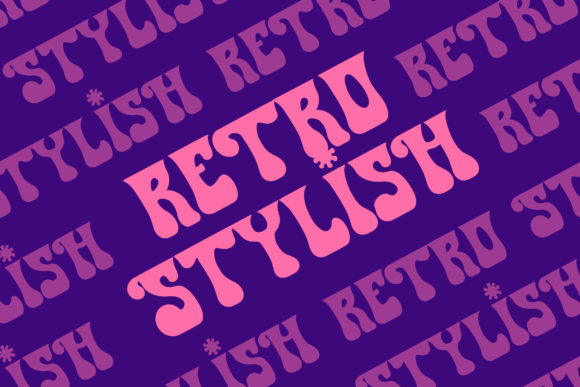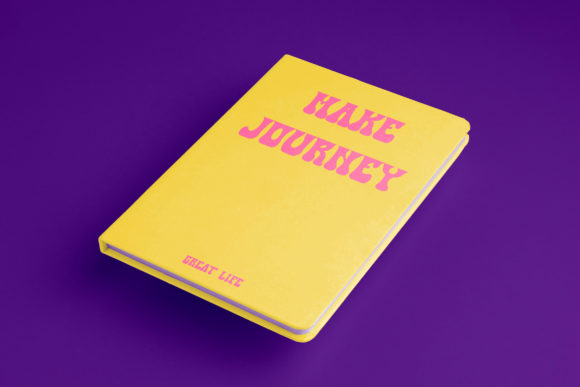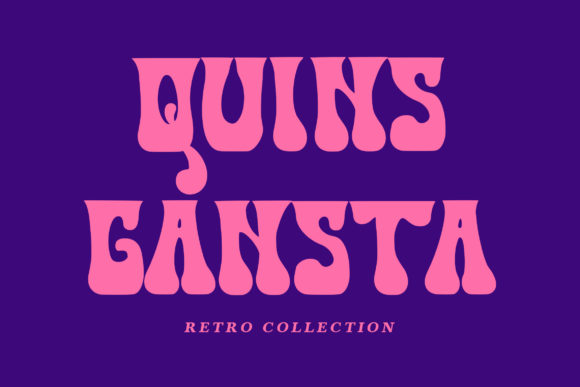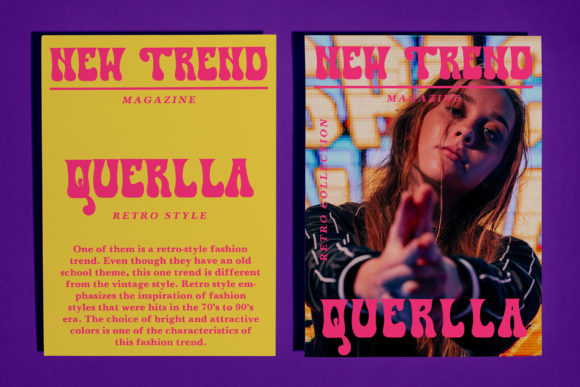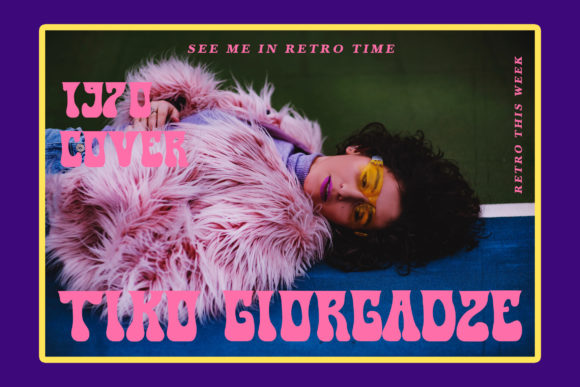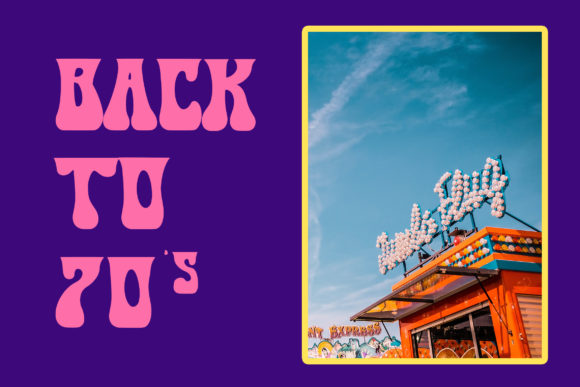
Introducing Happy Sunshine Font: The Ultimate Retro Display Font for Your Creative Projects
Are you tired of using the same old fonts for your designs and crafts? Look no further! Happy Sunshine Font is here to bring a burst of energy and fun to your creations. This wavy, thick lettered, and retro display font is perfect for designers and crafters who want to add a touch of playfulness and whimsy to their work.
What is Happy Sunshine Font?
Happy Sunshine Font is a unique and eye-catching font that is sure to make your designs stand out. Its wavy and thick lettering gives it a retro feel that is reminiscent of classic summer vibes. The font is perfect for creating bold and eye-catching headlines, titles, and quotes that will grab the attention of your audience.
Key Features of Happy Sunshine Font
- Wavy and Thick Lettering: Happy Sunshine Font features wavy and thick lettering that gives it a unique and playful look.
- Retro Display Font: The font has a retro feel that is perfect for creating vintage-inspired designs and crafts.
- Easy to Read: Despite its playful look, Happy Sunshine Font is easy to read and can be used for both headlines and body text.
- Versatile: The font can be used for a variety of design projects, including posters, flyers, brochures, and more.
How to Use Happy Sunshine Font in Your Designs
Happy Sunshine Font is a versatile font that can be used in a variety of design projects. Here are a few ideas to get you started:
- Create Eye-Catching Headlines: Use Happy Sunshine Font to create bold and eye-catching headlines that will grab the attention of your audience.
- Add a Personal Touch to Your Crafts: Happy Sunshine Font is perfect for crafters who want to add a personal touch to their projects. Use it to create custom titles, quotes, and phrases for your crafts.
- Design Vintage-Inspired Posters: Happy Sunshine Font is perfect for creating vintage-inspired posters and flyers. Pair it with some distressed textures and vintage graphics for a unique look.
Why Choose Happy Sunshine Font?
There are many fonts available online, but Happy Sunshine Font stands out from the rest. Here are a few reasons why:
- Unique and Eye-Catching: Happy Sunshine Font is a unique and eye-catching font that will make your designs stand out.
Tips and Tricks for Using Happy Sunshine Font
Here are a few tips and tricks for using Happy Sunshine Font in your designs:
- Pair it with Other Fonts: Happy Sunshine Font can be paired with other fonts to create a unique look. Try pairing it with a sans-serif font for a bold and modern look.
- Use it for Titles and Headlines: Happy Sunshine Font is perfect for titles and headlines. Use it to create bold and eye-catching titles that will grab the attention of your audience.
- Experiment with Colors: Happy Sunshine Font looks great in a variety of colors. Experiment with different colors to find the one that works best for your design.
Happy Sunshine Font is a unique and eye-catching font that is perfect for designers and crafters who want to add a touch of playfulness and whimsy to their work. Its wavy and thick lettering gives it a retro feel that is reminiscent of classic summer vibes. With its versatility and ease of use, Happy Sunshine Font is sure to become a favorite in your design arsenal.